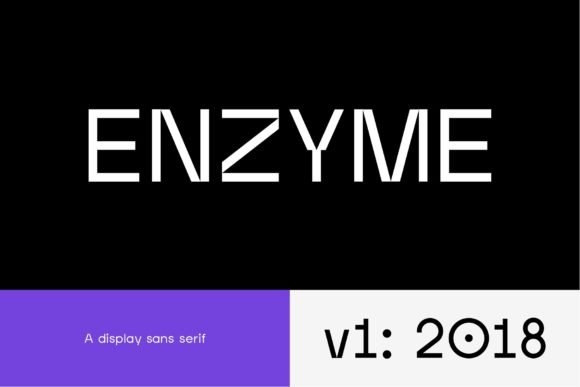
Breaking the Mold with the Enzyme Font
You’re sipping your morning coffee, staring at a blank page, and the creative juices just aren’t flowing. The words aren’t coming together, and your design feels stuck. It’s moments like these that we need a spark – something to shake us out of our routine and get our imagination going.
Enter the Enzyme Font, a contemporary sans-serif display font that’s designed to give your work an edge. Whether you’re working on a poster, editorial layout, or logo, this font is the perfect catalyst to elevate your design and make it stand out from the crowd. With its modernist vibe, the Enzyme Font is a valuable addition to any designer’s toolkit.
Enzyme Font Key Features
- Font Size: The font comes in a single weight, making it ideal for use in digital and print applications where a clean, modern aesthetic is desired.
- Character Set: Enzyme Font includes a comprehensive set of characters, including Latin, Greek, and Cyrillic alphabets, as well as punctuation and symbols.
- Unique Characteristics: Enzyme Font features a distinctive, geometric sans-serif design with a subtle rounded edge, giving it a friendly and approachable feel.
Enzyme Font Review
Overall, I was excited to dive into the Enzyme Font, with its promises of clean lines and a modern aesthetic. Here’s my honest take.
- Modern feel: Enzyme Font does deliver on its promise of a sleek, modern look that’s perfect for contemporary designs.
- Legibility: I found the font to be highly legible, even at smaller font sizes.
- Customization options: The font family offers a range of weights and styles, making it easy to find the perfect fit for your project.
- Limited expressiveness: While Enzyme Font excels at clean lines and simplicity, it may not be the best choice for projects that require a lot of personality or flair.
- Lack of uniqueness: The font’s modern aesthetic is certainly familiar, but it may not stand out from the crowd in a crowded market.
- Not suitable for all languages: Enzyme Font may not be the best choice for languages that require complex diacritical marks or other special characters.
While Enzyme Font is a solid choice for modern designs, it may not be the best fit for every project. Its limitations are worth considering, especially if you’re looking for a font that can really make a statement.
Enzyme Font is particularly useful for creating unique headings and titles in Canva.
Enzyme Font is ideal for creating custom logos, typography-based artwork, and graphics.
Enzyme Font is perfect for adding a touch of elegance and sophistication to your presentations and documents.
For the most effective use of Enzyme Font, keep the following tips in mind:
– Use Enzyme Font sparingly to create emphasis and visual interest.
– Pair Enzyme Font with other fonts to create a visually appealing typography.
– Use Enzyme Font for headings, titles, and other text elements where a unique, eye-catching font is desired.
Alternatives to Enzyme Font for Designers
Public Sans Font
Public Sans Font is a modern sans-serif typeface developed by Carol Twombly and Robin Nicholas. It is a great choice for digital products, wayfinding systems, and signage. Public Sans Font has a similar geometric feel to Enzyme Font, but it has a more open and airy feel. It is a great choice when you need a typeface that is both legible and visually appealing.
What is the recommended font size and line height for Enzyme Font?
For optimal readability, we recommend using a font size between 12 and 18 points, depending on your design’s requirements. A line height of 1.2 to 1.5 times the font size is also recommended to provide sufficient breathing room between lines of text.